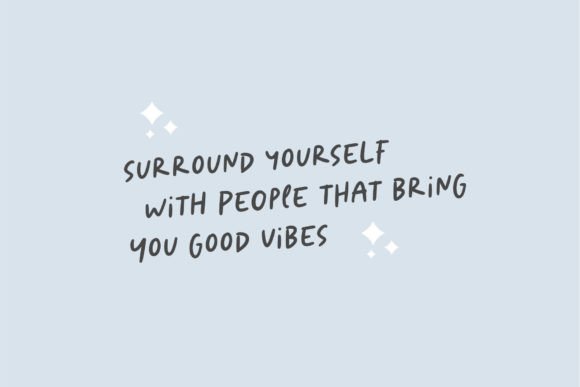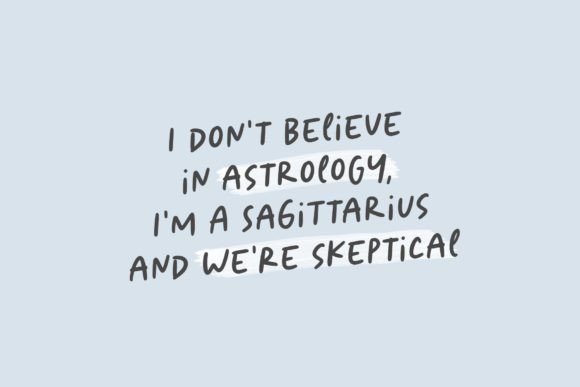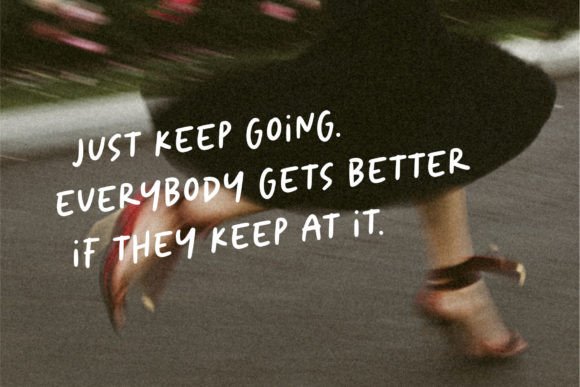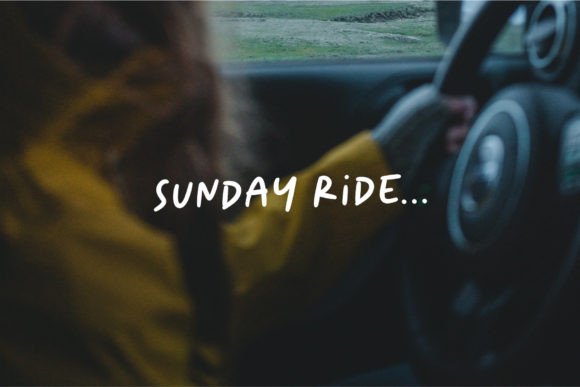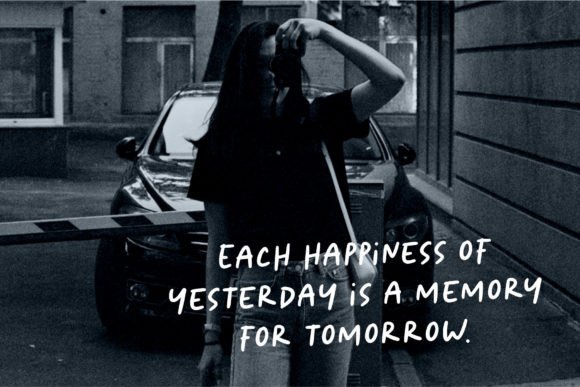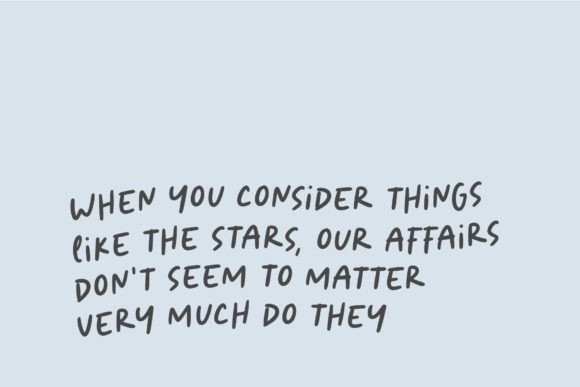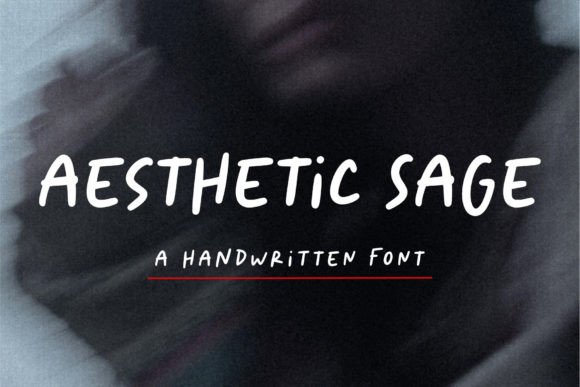
The Quest for the Perfect Handwritten Font: Discovering Aesthetic Sage
I’ll never forget the time I was working on a project for a client who wanted a custom greeting card design. I had all the elements ready – the graphics, the layout, the colors – but I was stuck on one thing: the font. I wanted something that felt personal, yet polished; handwritten, yet professional. And that’s when I stumbled upon Aesthetic Sage.
This beautiful handwritten font has been a game-changer for me, and I’m excited to share it with you. Aesthetic Sage is a basic character, punctuation, and numbers font set that’s made with the natural concept of handwriting in mind. It’s perfect for crafts, digital design, presentations, or making greeting cards – really, any project that needs a personal touch.
Honest Review: The Good and the Quirky
- ✨ The natural, handwritten feel that’s perfect for adding a personal touch to any project
- ✅ The font is versatile and works well for both digital and print designs
- ✅ The character set includes a range of punctuation and numbers, making it easy to use for a variety of projects
- ✅ The font is easy to read, even at smaller sizes
- ⚠️ Some of the letters have a slightly irregular baseline, which can make it tricky to use for certain types of designs
- ⚠️ The font doesn’t have a huge range of stylistic alternates, which might limit its use for very specific design projects
The Story Behind Aesthetic Sage
Aesthetic Sage was designed with the goal of creating a font that felt natural and handwritten. The designer wanted to create a font that would be perfect for crafts, digital design, and other creative projects. With its basic character set and natural feel, Aesthetic Sage is a great choice for anyone looking for a versatile, handwritten font.
Q: Is Aesthetic Sage a script font?
A: No, Aesthetic Sage is a handwritten font, but it’s not a script font. It has a more natural, irregular feel that’s perfect for adding a personal touch to designs.